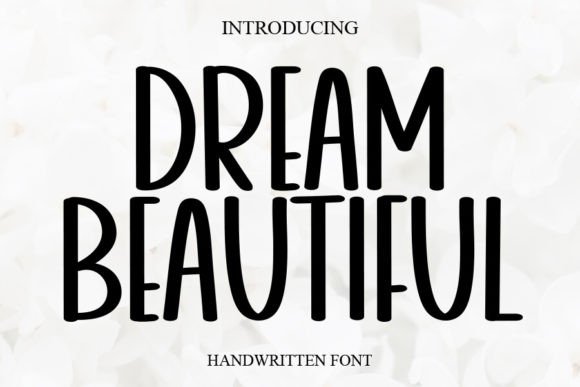
Dream Beautiful Font: Elevate Your Designs with Stylish and Modern Typography
In the world of graphic design, typography plays a crucial role in capturing the audience’s attention and conveying the message effectively. A well-chosen font can make all the difference in creating visually appealing designs that stand out from the crowd. If you’re looking for a font that can add a touch of elegance and sophistication to your projects, look no further than the Dream Beautiful Font. In this article, we’ll explore the features and benefits of this stunning display font and how it can elevate your designs to the next level.
What is Dream Beautiful Font?
Dream Beautiful is a tall and bold display font that’s designed to make a statement. Its stylish and modern letters are perfect for creating eye-catching titles and headings that grab the audience’s attention. The font’s sleek and elegant design makes it ideal for a wide range of creative projects, from posters and banners to logos and branding materials.
Key Features of Dream Beautiful Font
- Tall and Bold: The Dream Beautiful Font is characterized by its tall and bold letters, making it perfect for creating striking titles and headings.
- Stylish and Modern: The font’s sleek and elegant design gives it a stylish and modern look that’s sure to impress.
- Highly Legible: Despite its bold and stylized design, the Dream Beautiful Font remains highly legible, even at smaller sizes.
- Versatile: The font is suitable for a wide range of creative projects, from posters and banners to logos and branding materials.
Benefits of Using Dream Beautiful Font
Using the Dream Beautiful Font in your designs can have numerous benefits. Here are a few:
- Grabs Attention: The font’s bold and stylized design makes it perfect for grabbing the audience’s attention and drawing them into your message.
- Adds Elegance: The font’s sleek and elegant design adds a touch of sophistication and elegance to your designs.
- Enhances Brand Identity: Using a unique and stylish font like Dream Beautiful can help establish a strong brand identity and differentiate your brand from competitors.
- Increases Readability: Despite its bold design, the font remains highly legible, making it easy for readers to quickly scan and understand your content.
Use Cases for Dream Beautiful Font
The Dream Beautiful Font is versatile and can be used in a wide range of creative projects. Here are a few examples:
- Posters: Use the font to create eye-catching posters that grab the audience’s attention.
- Banners: The font is perfect for creating bold and stylish banners that make a statement.
- Logos and Branding: Use the font to create a unique and stylish logo that establishes a strong brand identity.
- Social Media Graphics: The font is suitable for creating social media graphics that stand out from the crowd.
Tips for Using Dream Beautiful Font
Here are a few tips for using the Dream Beautiful Font effectively:
- Use it Sparingly: While the font is stunning, it’s best to use it sparingly to avoid overwhelming the reader.
- Pair it with Other Fonts: Pair the font with other fonts to create visual interest and add depth to your designs.
- Experiment with Colors: Experiment with different colors to find the perfect combination that complements your brand and message.
In conclusion, the Dream Beautiful Font is a stunning display font that’s perfect for creating eye-catching titles and headings. Its stylish and modern design makes it ideal for a wide range of creative projects, from posters and banners to logos and branding materials. With its bold and stylized design, high legibility, and versatility, this font is sure to elevate your designs to the next level.
- What is the Dream Beautiful Font? The Dream Beautiful Font is a tall and bold display font that’s designed to make a statement.
- What are the key features of the Dream Beautiful Font? The font’s key features include its tall and bold letters, stylish and modern design, high legibility, and versatility.
- What are the benefits of using the Dream Beautiful Font? The benefits of using the font include grabbing attention, adding elegance, enhancing brand identity, and increasing readability.